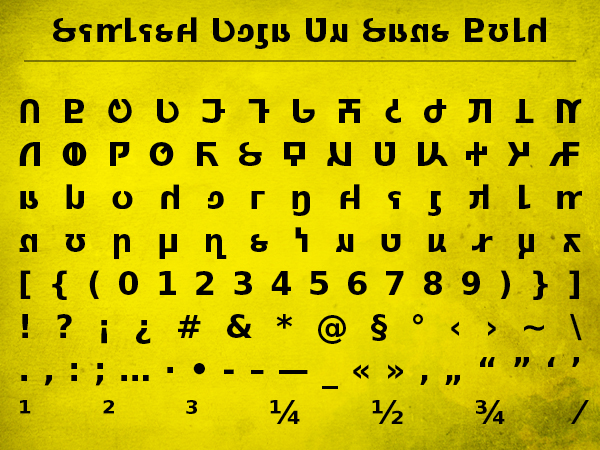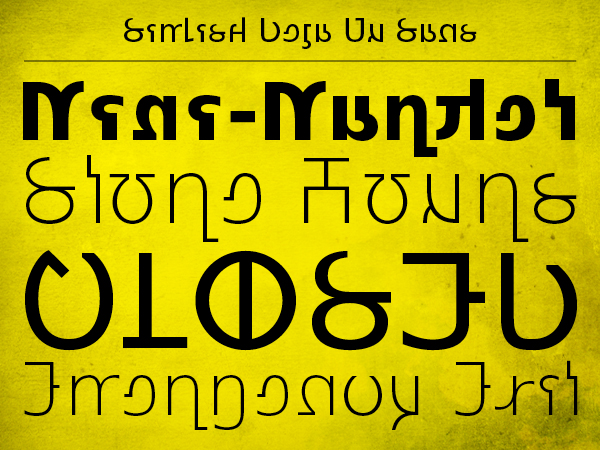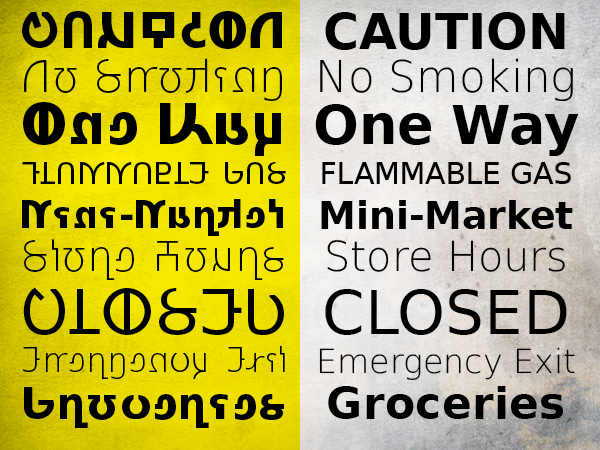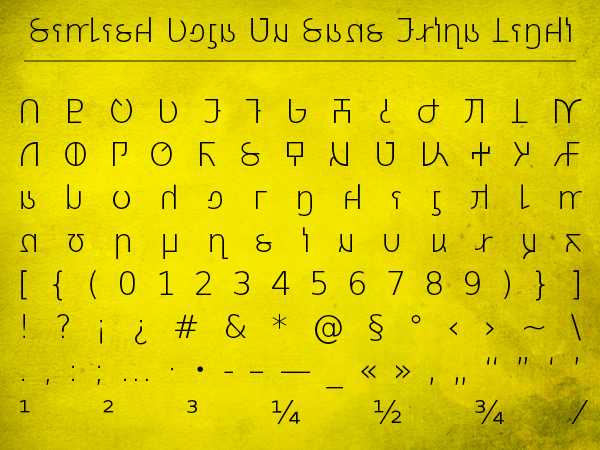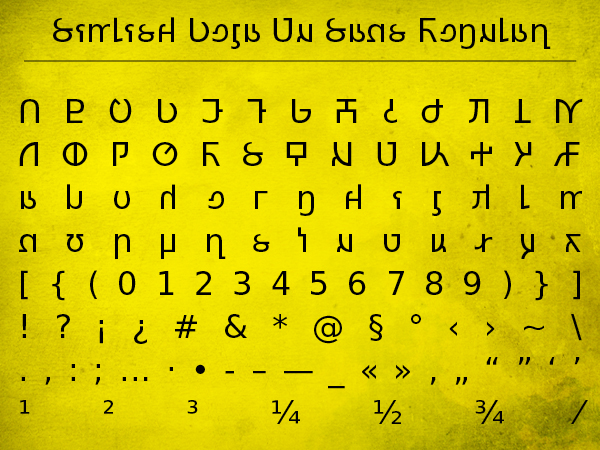
Simlish Deja Vu font
Simlish Deja Vu Sans is the simlish version of the existing font Deja Vu (which you can download here). Simlish Deja Vu Sans comes in 3 weights Regular, Bold and Extra Light which match the 3 weights in the original version. And I do not know why there is an Extra Light but no Light.
Below is a comparison of simlish versus english. I did have to scale the simlish version to resolve an issue I was having while generating the font, but it seems to not have effected the relationship between the two fonts. The graphic below shows the same word set in the same weight at the same size so if you are going to make graphics in both simlish and english they should look reasonably similar.
Below is the complete character set for all 3 weights. Since the original font has several thousand characters I only left what I thought was needed for The Sims game. If you need something more you can download the original through the link above.
I tried to copy the spacing from the original version over to the simlish version so it should be spaced fairly well. However I did not make kerning pairs so there will be some letter combinations that will need some adjustments within your graphics programs.